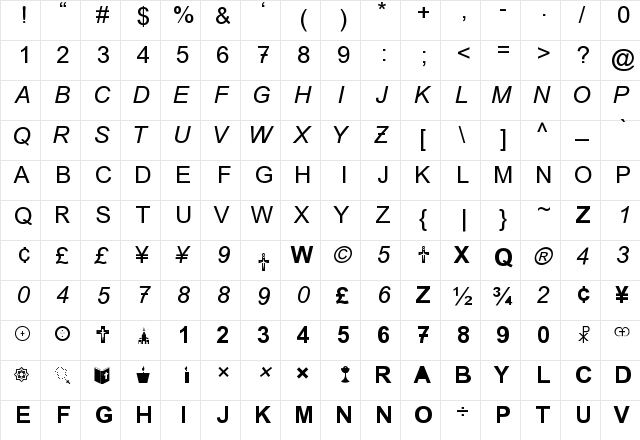
Print Arty Regular
Design Context for Print Arty Typeface
Print Arty takes a measured approach to typography — its balanced proportions and neutral character make it a reliable workhorse for both digital and print work.
Pro Tip: Pair Print Arty with a font of contrasting weight or personality to build a more expressive typographic hierarchy.